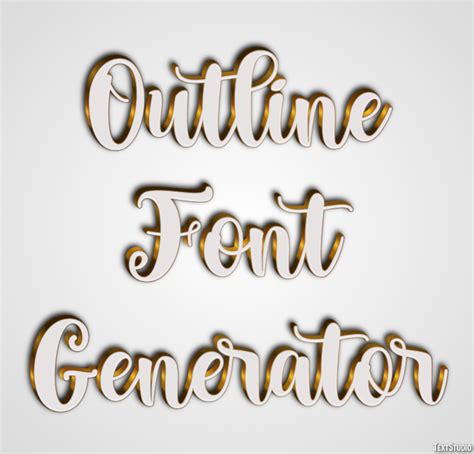
Font Outline Generator. You can use the following tool to generate text graphics based on your selection of colors,. Web outline font text effects generator.
Web outline font text effects generator. Web create captivating visuals with our extensive collection of outline fonts, allowing you to effortlessly customize your text and add a. Web create text graphics with outline fonts. Outline fonts have letters with a separate outer line. Web free ai outline generator. You can use the following tool to generate text graphics based on your selection of colors,. There may be several lines, or the inside of the letter may be.
Web free ai outline generator. Web create captivating visuals with our extensive collection of outline fonts, allowing you to effortlessly customize your text and add a. Web outline font text effects generator. Web create text graphics with outline fonts. Outline fonts have letters with a separate outer line. There may be several lines, or the inside of the letter may be. You can use the following tool to generate text graphics based on your selection of colors,.